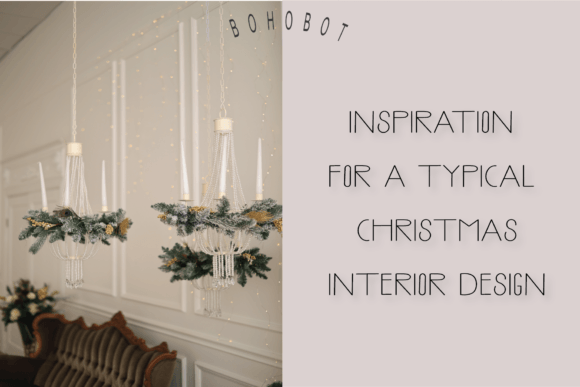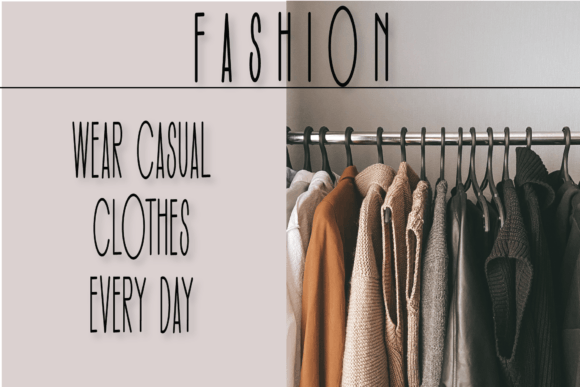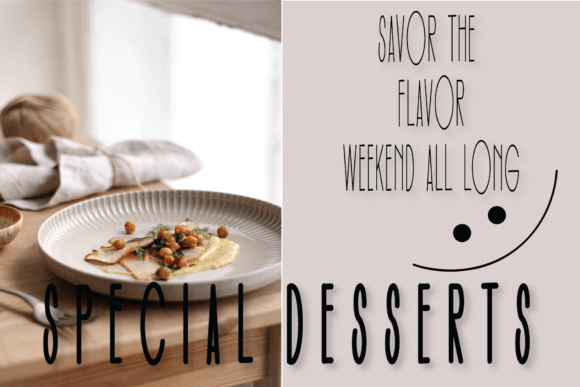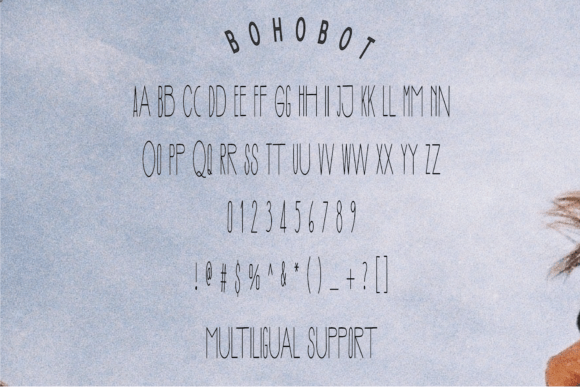
Discover the Luxe Touch with Bohobot Font
Have you ever stared at a beautifully crafted packaging design and thought, “I wish I could create something that stunning”? For designers, the quest for the perfect font is an ongoing journey. The moment you stumble upon the perfect typeface, it’s like finding a missing piece of a puzzle – everything falls into place.
Enter the Bohobot Font, a majestic typeface designed to evoke a sense of luxury and sophistication. This elegant font is perfect for creating stunning visuals that command attention. Whether you’re designing packaging, fashion, or fragrance labels, the Bohobot Font is sure to elevate your creations to new heights.
With the Bohobot Font, designers can add a touch of high-end glamour to their work, making it an invaluable asset in their creative toolkit. Its versatility and sophistication make it an excellent choice for a wide range of projects, from social media posts to high-end branding.
Key Features of Bohobot Font
- Unique Characteristics: The font features a unique blend of modern and vintage elements, with intricate details and subtle textures, making it suitable for a wide range of design projects.
Bohobot Font Review
Overall, I was excited to dive into the Bohobot Font, and I think it has some real potential. ✨ One of the things that stands out is the unique and quirky aesthetic. It’s definitely not your average, run-of-the-mill font. The Bohobot Font is perfect for those looking to add a bit of whimsy and personality to their designs.
The font is also surprisingly versatile, and I found it worked well in a variety of contexts, from body text to headings. The Bohobot Font also has a wide range of weights and styles, making it easy to customize to suit your needs. ✨ The font is also well-behaved and easy to use, even for those who are new to font design.
That being said, there are some limitations to consider. ⚠️ The Bohobot Font may not be the best choice for formal or professional projects, as it can come across as a bit too playful. Additionally, some of the characters may not be as refined or detailed as those in more established fonts.
Here are some of the key pros and cons:
- ✨ Unique and quirky aesthetic
- ✨ Versatile and easy to use
- ⚠️ May not be suitable for formal or professional projects
- ⚠️ Some characters may not be as refined or detailed
Overall, I think the Bohobot Font is a great choice for those looking to add a bit of personality to their designs. Just be sure to consider the context and audience before using it.
Tips for Getting the Most Out of Bohobot Font
Bohobot Font is a versatile and modern font that works well for a variety of designs. To get the most out of it, try using it for headings and titles, or as a accent font to add visual interest to your design. You can also experiment with different font sizes and colors to create a unique look.
Bohobot Font is commonly used for creative and modern designs, such as:
– Website design
– Print materials like business cards and brochures